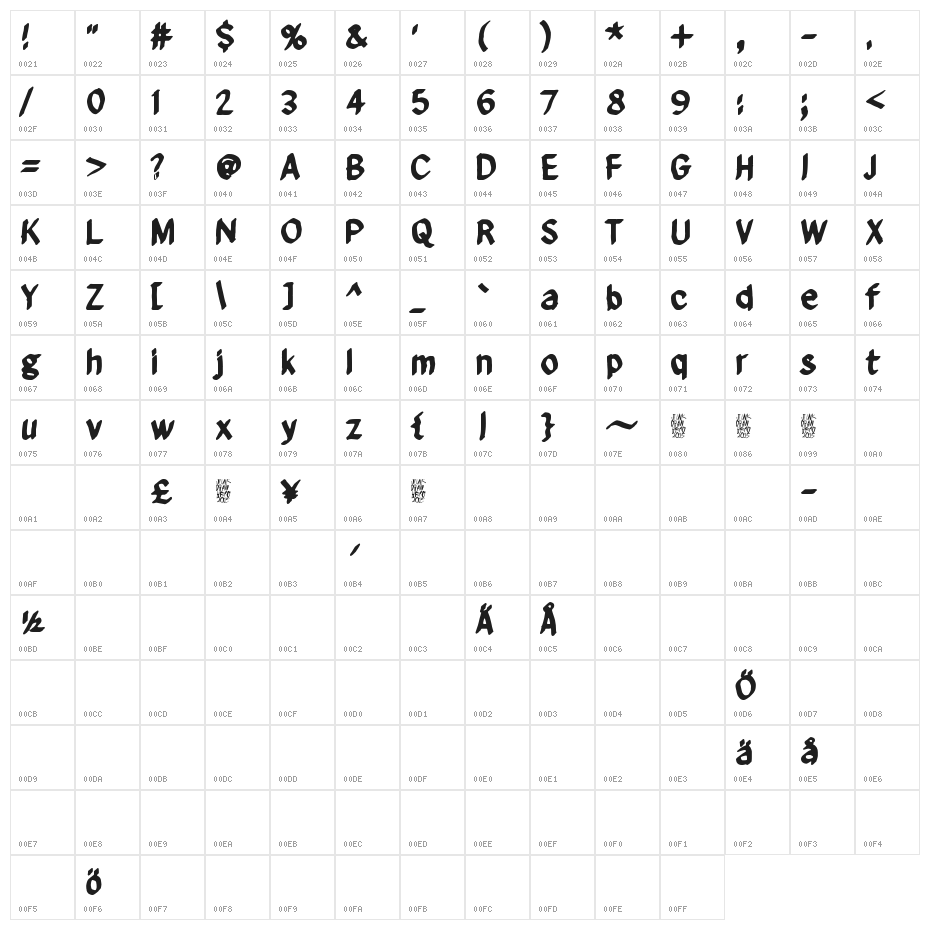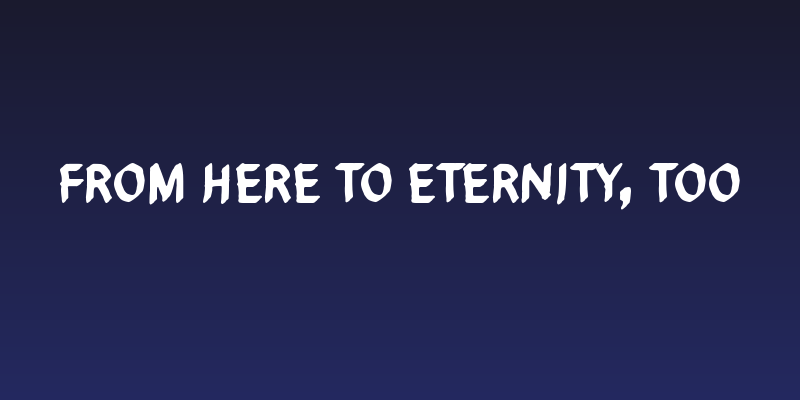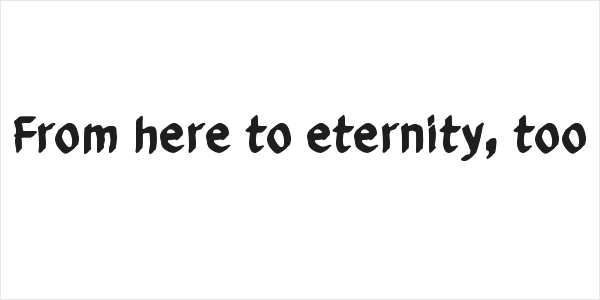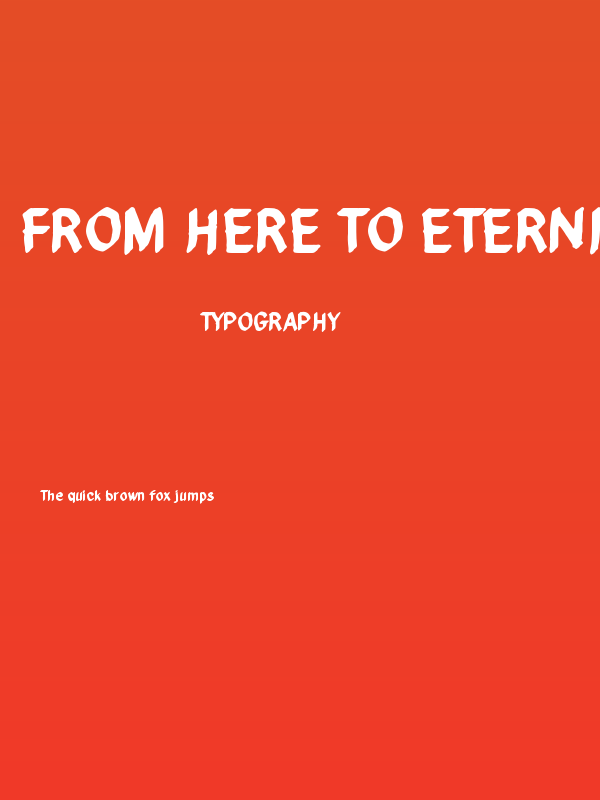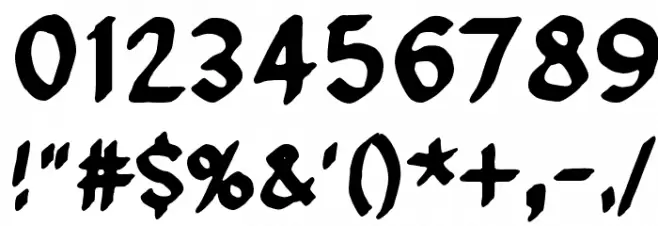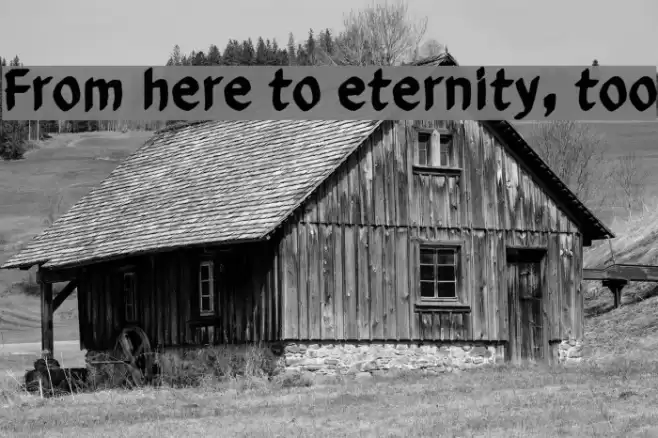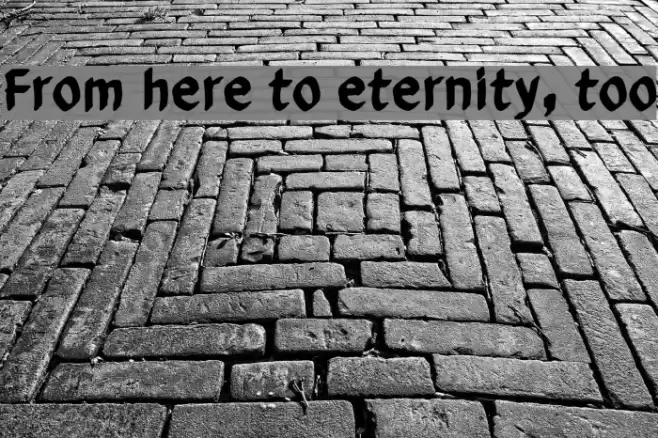
From here to eternity, too Font
From here to eternity, too Description
This font features a bold, hand-drawn style with a playful and informal appearance. The characters are slightly irregular, giving them a unique and organic feel. The strokes are thick and consistent, creating a strong visual impact. The uppercase and lowercase letters maintain a cohesive look, while the numerals and special characters complement the overall design. This font's distinctive style makes it suitable for creative and artistic projects where a casual and approachable tone is desired.
| Proposed Projects | Ideal for posters, children's book covers, greeting cards, and creative branding. |